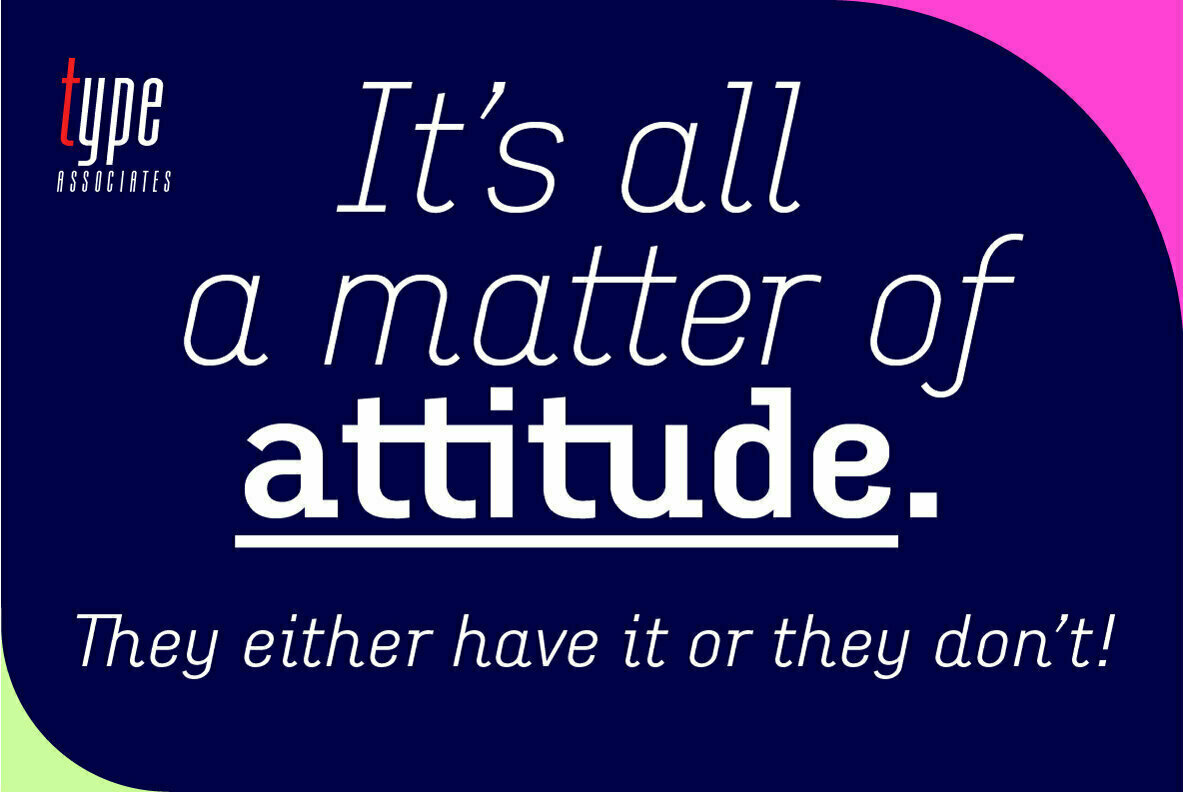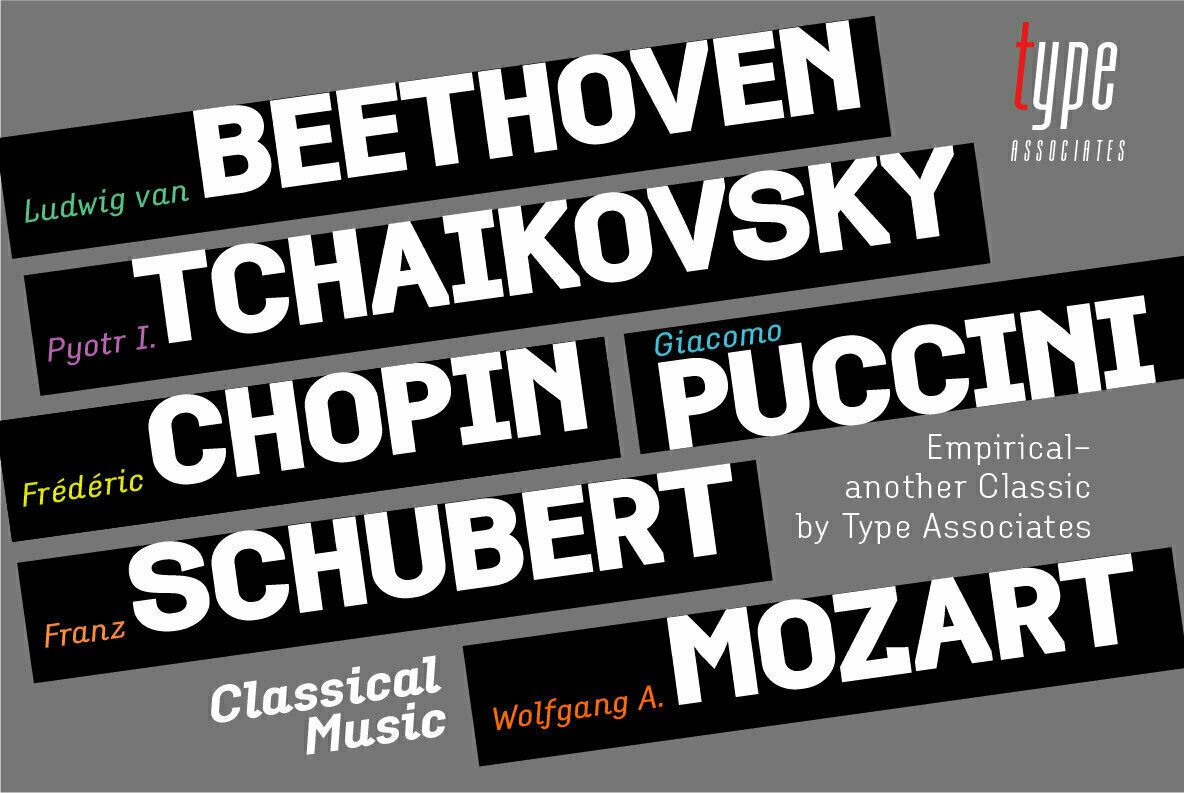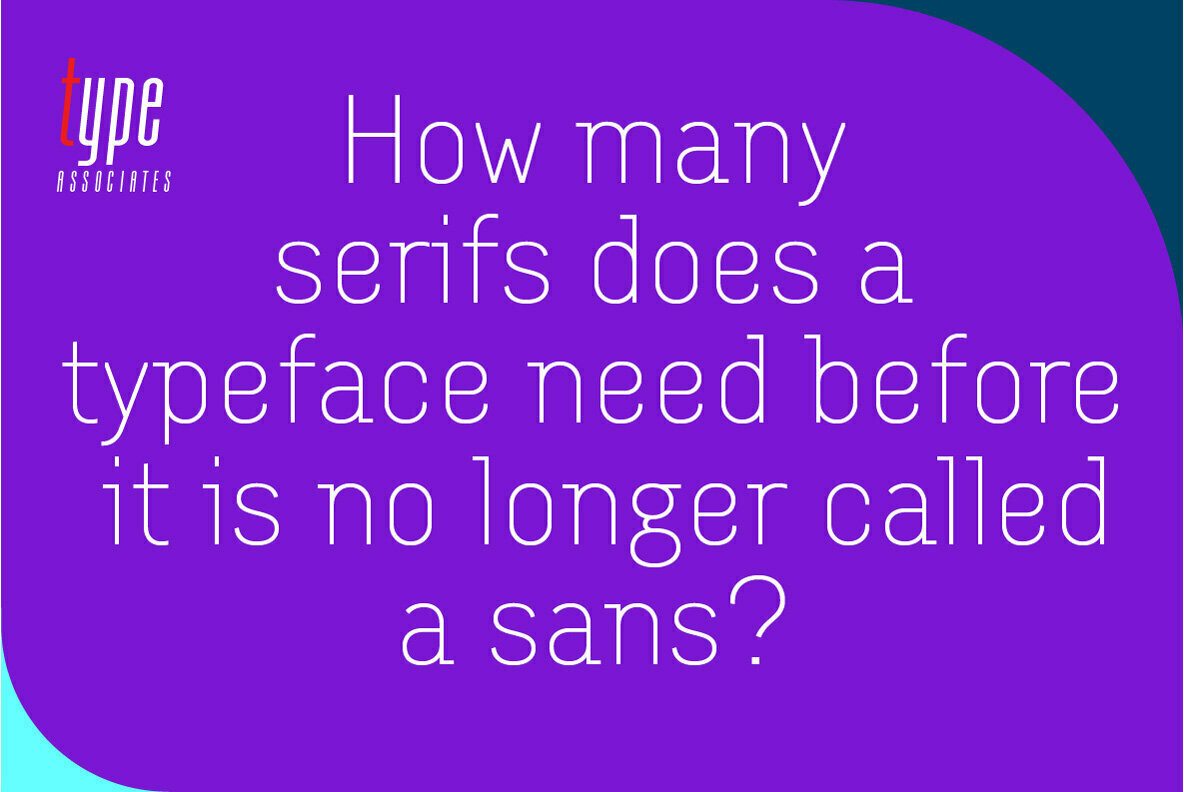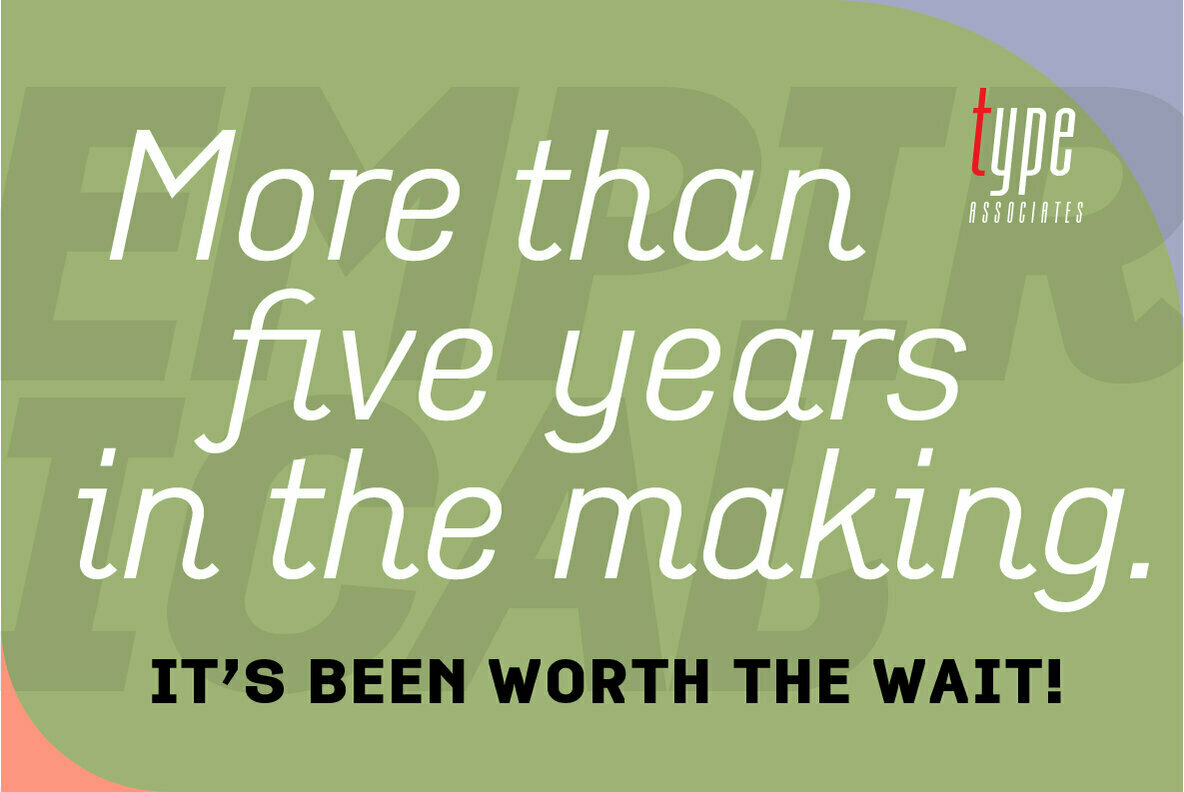
Empirical Font
When I first approached this design back in 2003 I wrote myself a design brief that called for a simple sans serif "avec serifs" (with serifs). Its emphasis needed to be on text usage but to be at home in display sizes. A range of weights with a controlled step from one weight to the next, uniform character sets, spacing and kerning throughout the range. Attention to openness of counter spaces would be paramount to work in text sizes. Matching italics should be true italics not merely slanted - with a cursive feel.
During extensive testing I decided to include a suite of ligatures to eliminate the hairline gaps that occur between slab serifs at display sizes. The user may activate "Discretionary Ligatures" or "Stylistic Set 1" for ligatures that are not included in the Standard Ligatures (ff, fi, fl, ffi and ffl).